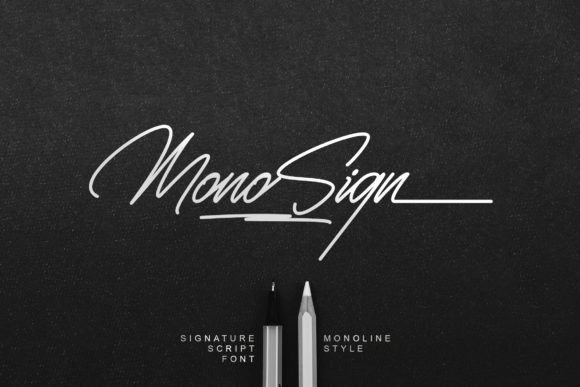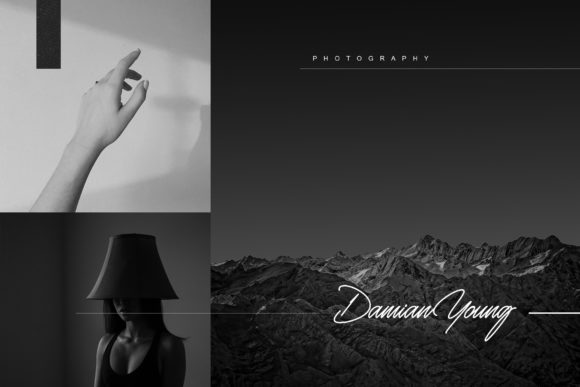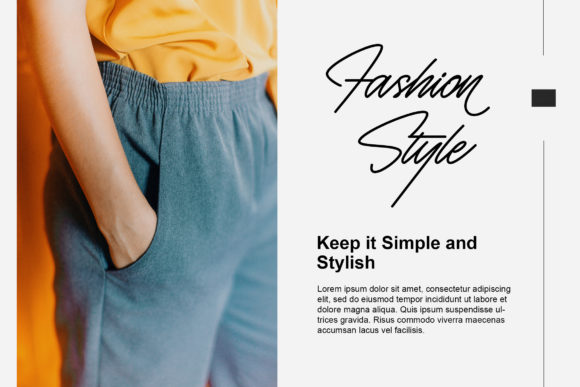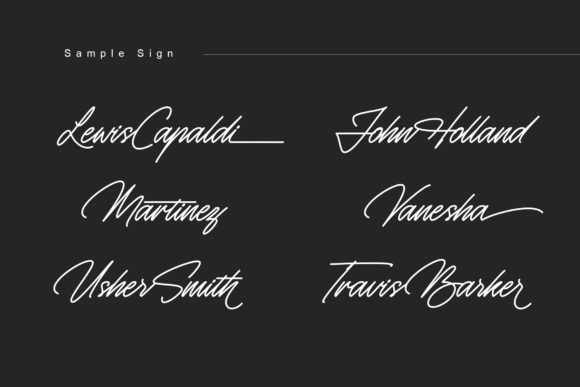
Monosign Font
About the Monosign Font
Make a bold statement with Monosign Font, a powerful and memorable font. Monosign is a signature script font, featuring a lovely flow. It has a clean, thin and smooth vibe and it will be a hit for any design that you want to add it to. This font is PUA encoded which means you can access all of the glyphs and swashes with ease!
Monosign’s elegant, flowing forms make it ideal for headlines, logos, and short, impactful text within branding materials or invitations. Its delicate nature, however, means it’s less suitable for body copy or UI elements requiring high readability at smaller sizes. Long paragraphs set in Monosign would quickly become difficult to decipher.
The font’s inherent grace pairs well with geometric sans-serifs like Futura or a clean, neutral serif such as Garamond for a balanced contrast. For a more playful effect, consider pairing it with a rounded sans-serif like Gill Sans. Avoid pairing it with other script fonts as this risks visual clutter.
Monosign projects a sophisticated and refined personality, best suited for brands emphasizing luxury, style, or a handcrafted aesthetic. Its thin strokes convey a sense of delicate beauty and subtle charm.
Monosign Font Usage Examples
Monosign Font Example